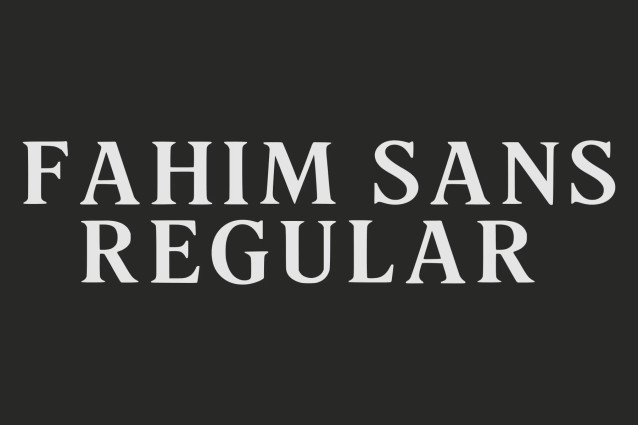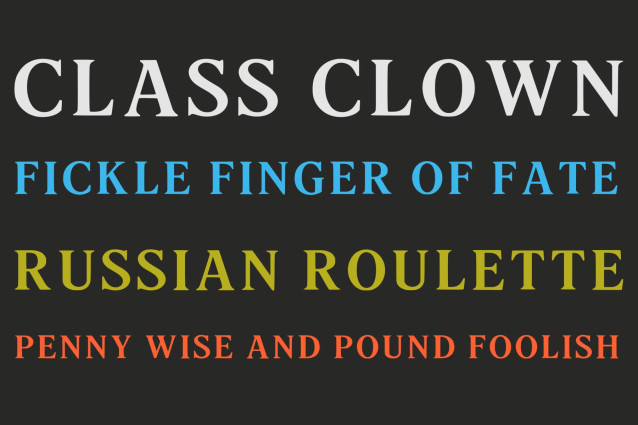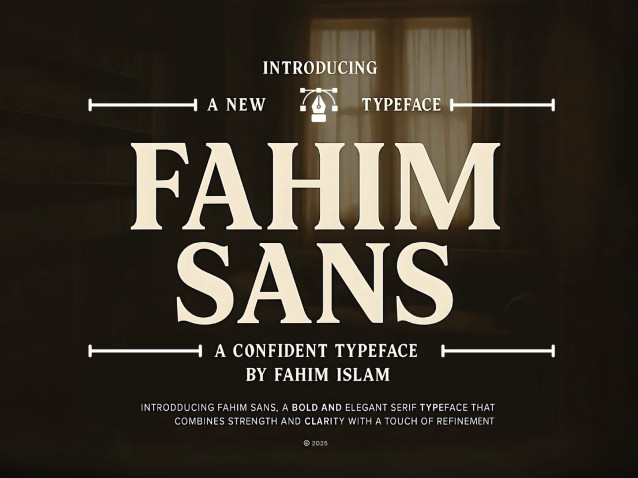
Fahim Sans Font
Fahim Sans Font is a modern, clean and versatile typeface designed for both digital and print use. With its smooth curves and balanced structure, Fahim Sans is perfect for branding, headlines, posters, logos and user interfaces. The font has a minimalist yet elegant look, suitable for both professional and creative projects.
Crafted with readability and aesthetic harmony in mind, Fahim Sans remains legible even at smaller sizes. Whether you are designing for the web or print, this typeface offers a reliable and stylish solution.